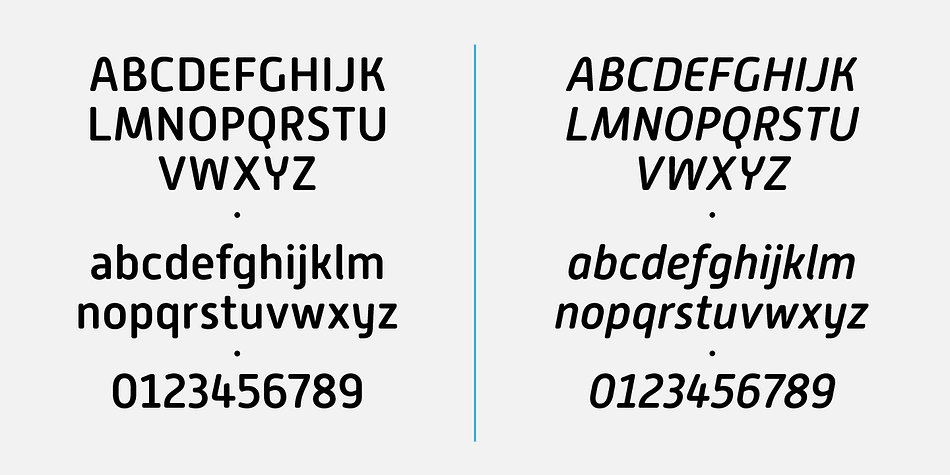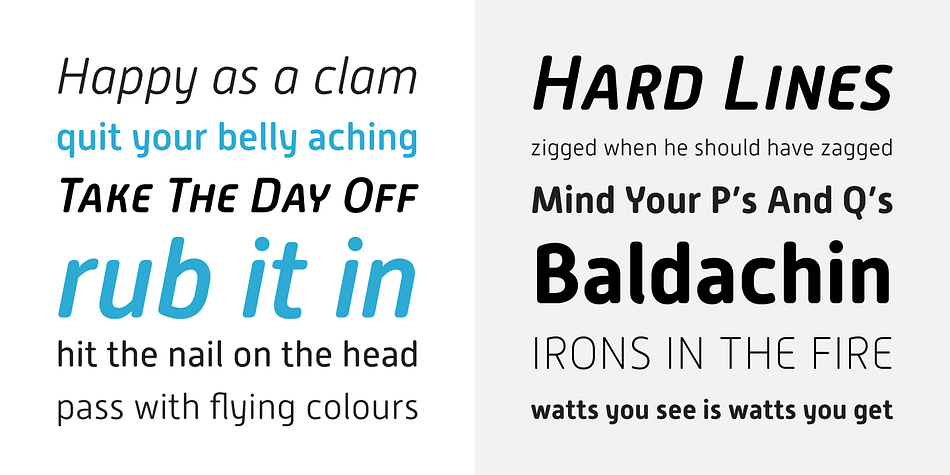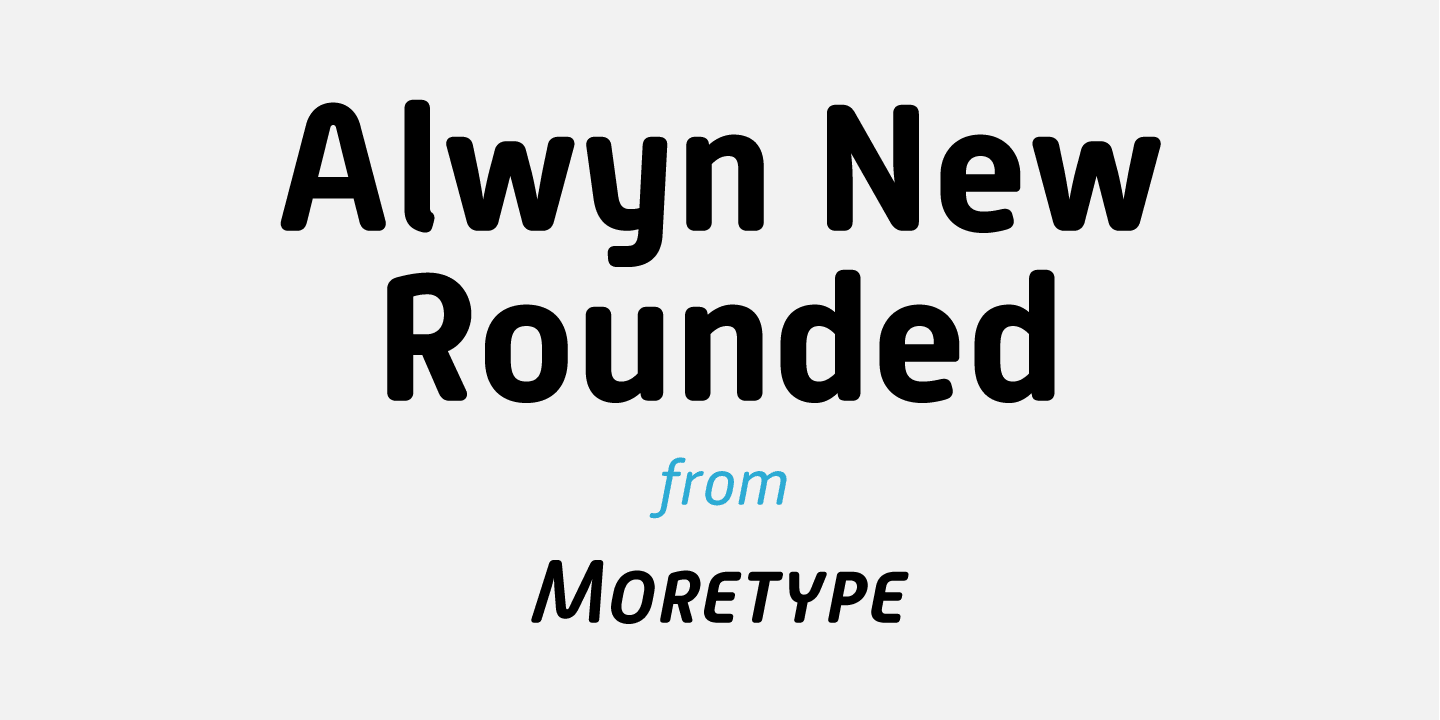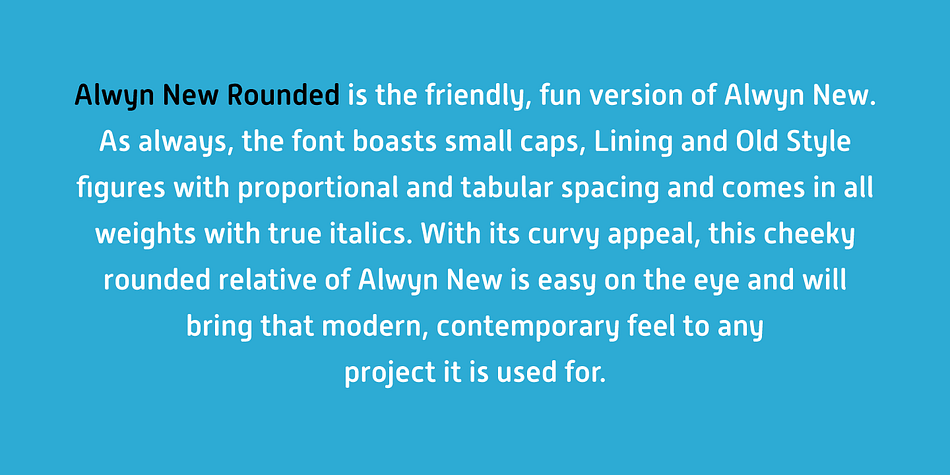
Alwyn New Rounded is a sans serif font family. This typeface has ten styles and was published by Moretype.
Alwyn New is the refurbished version of Alwyn, originally released in 2005. Whilst the font has been completely re-drawn, re-spaced and re-kerned it retains its original, ‘squarish’, robush charm, and now has a wealth of features consistent with an Opentype font. Ranging from Thin to Bold, with Italics in all weights, Alwyn is a perfect choice for a variety of tasks ranging from text setting to signage systems. Alwyn New has been hand hinted for web use.